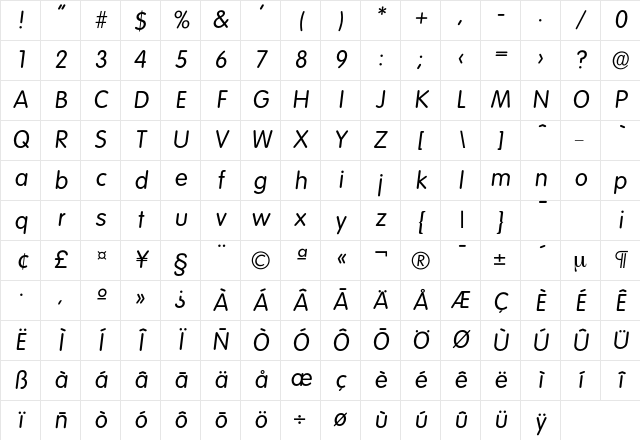
Volkswagen-RegularIta Regular
Design Context for Volkswagen-RegularIta
Volkswagen-RegularIta is a composed and adaptable typeface that performs quietly and consistently across a wide range of design contexts.
Pro Tip: Use Volkswagen-RegularIta in both headline and body roles to test its range before committing to a single application.